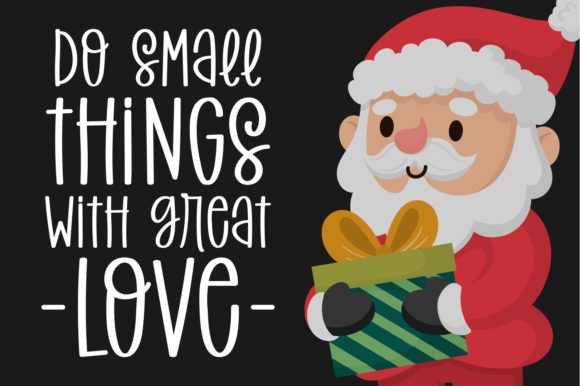
Story in Christmas Font
db-ku.com - Script & Handwritten -- Story In Christmas is a playful, tall and friendly handwritten font, that can be used for all chalkboard quotes or teaching material! Its authentic look will add a personal and realistic feel to your designs.